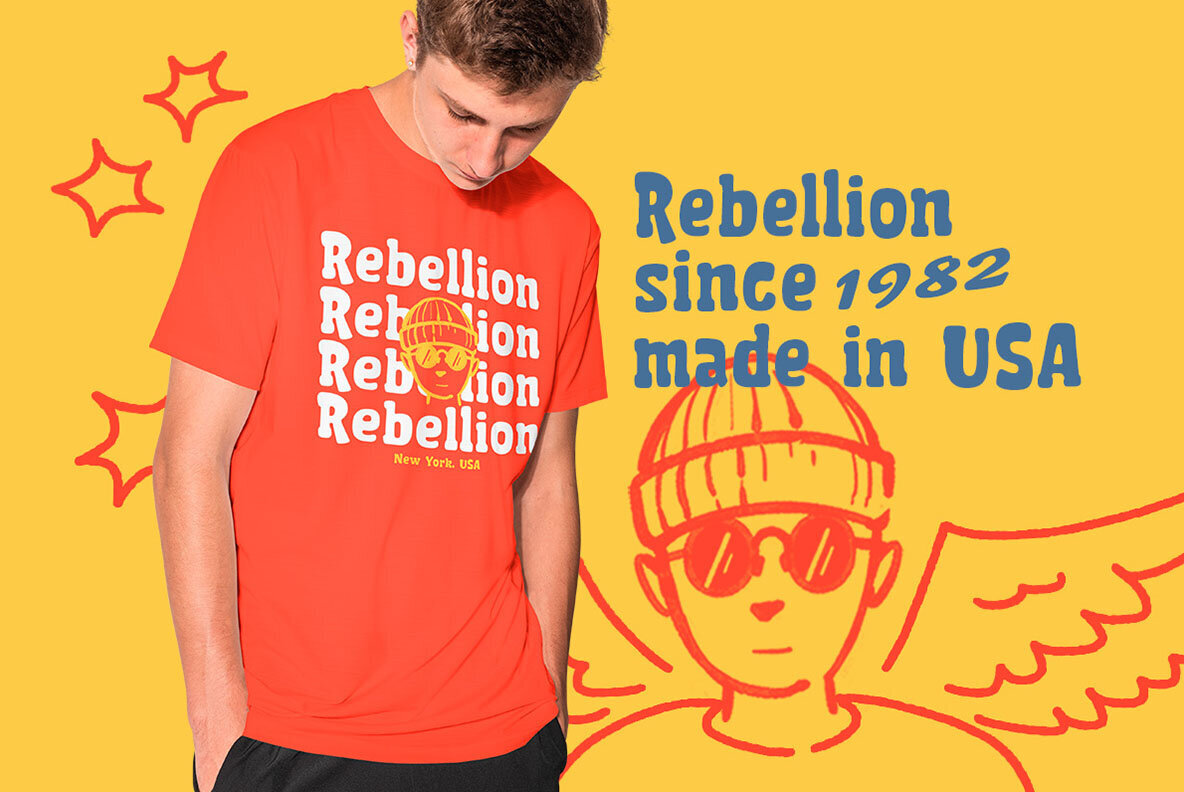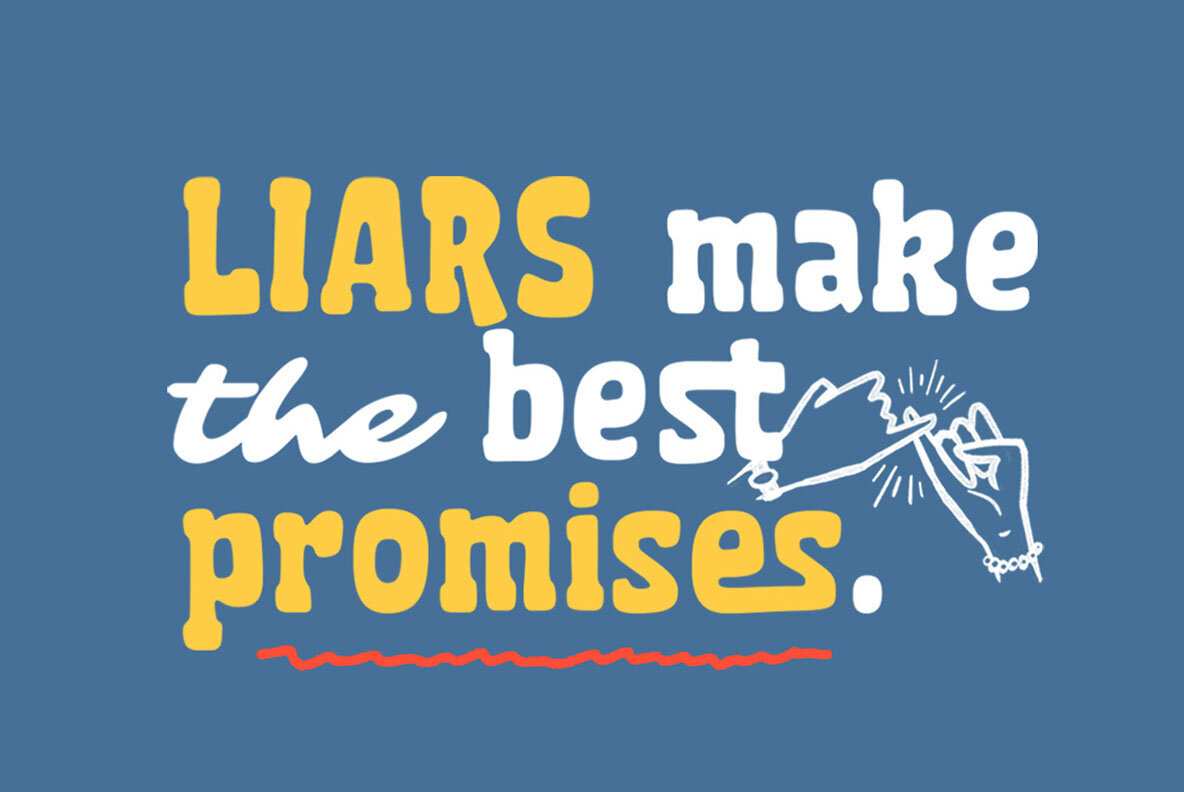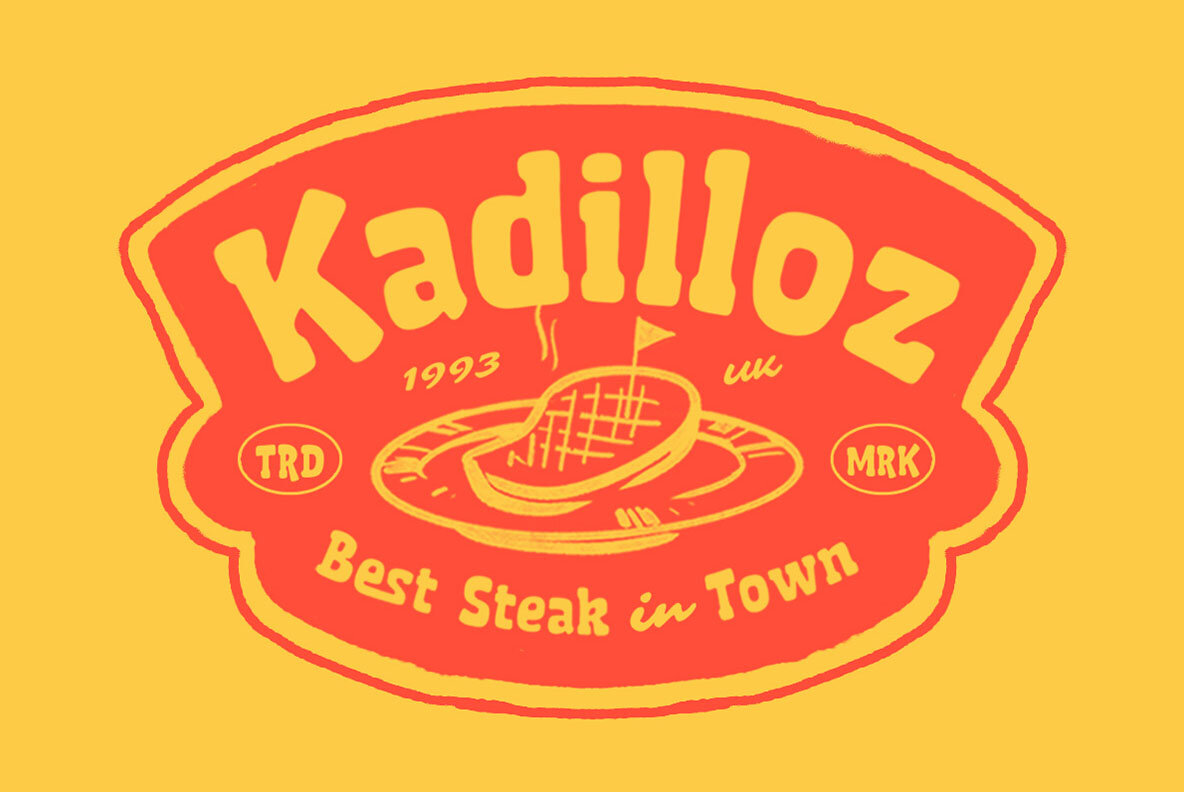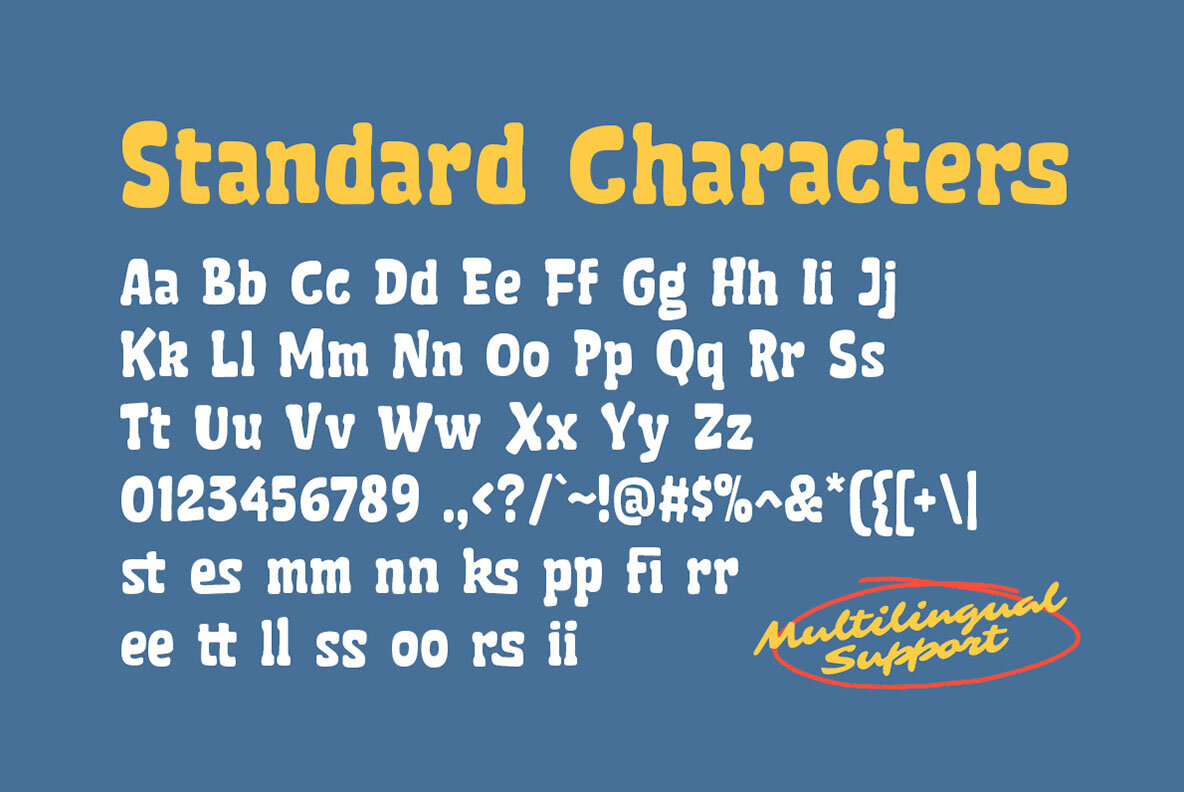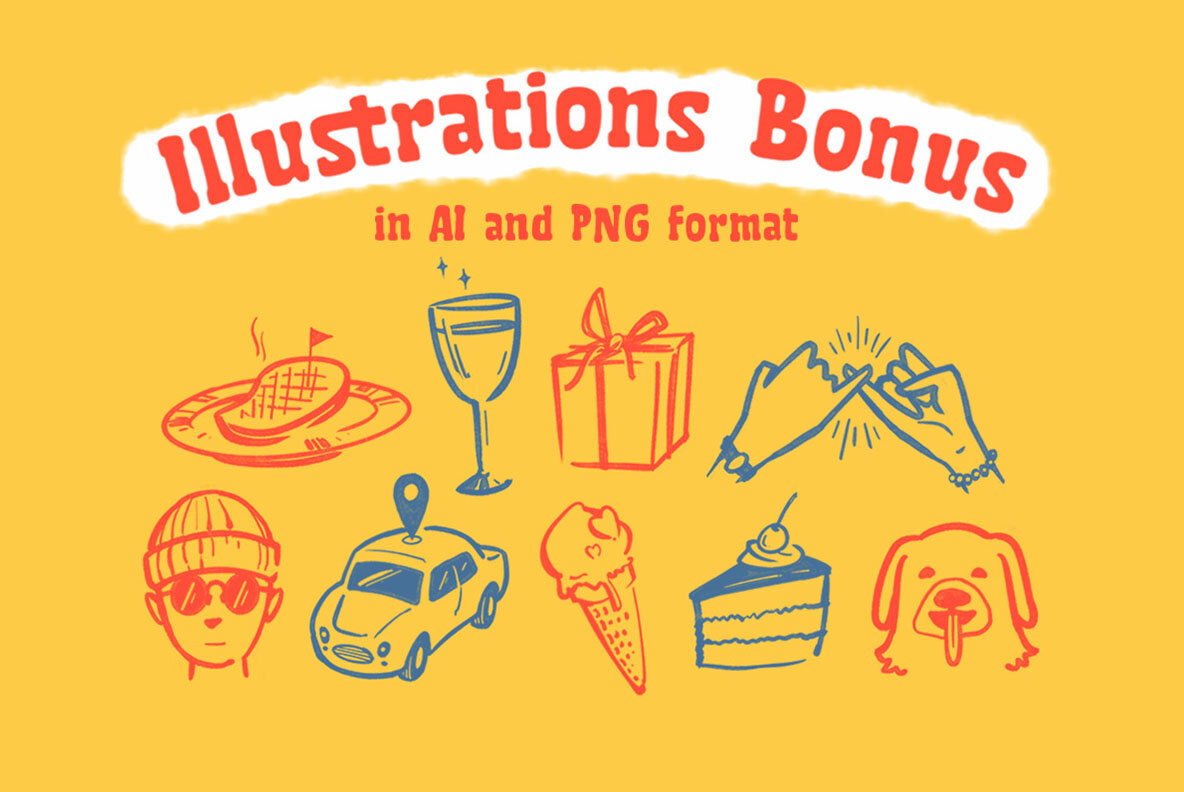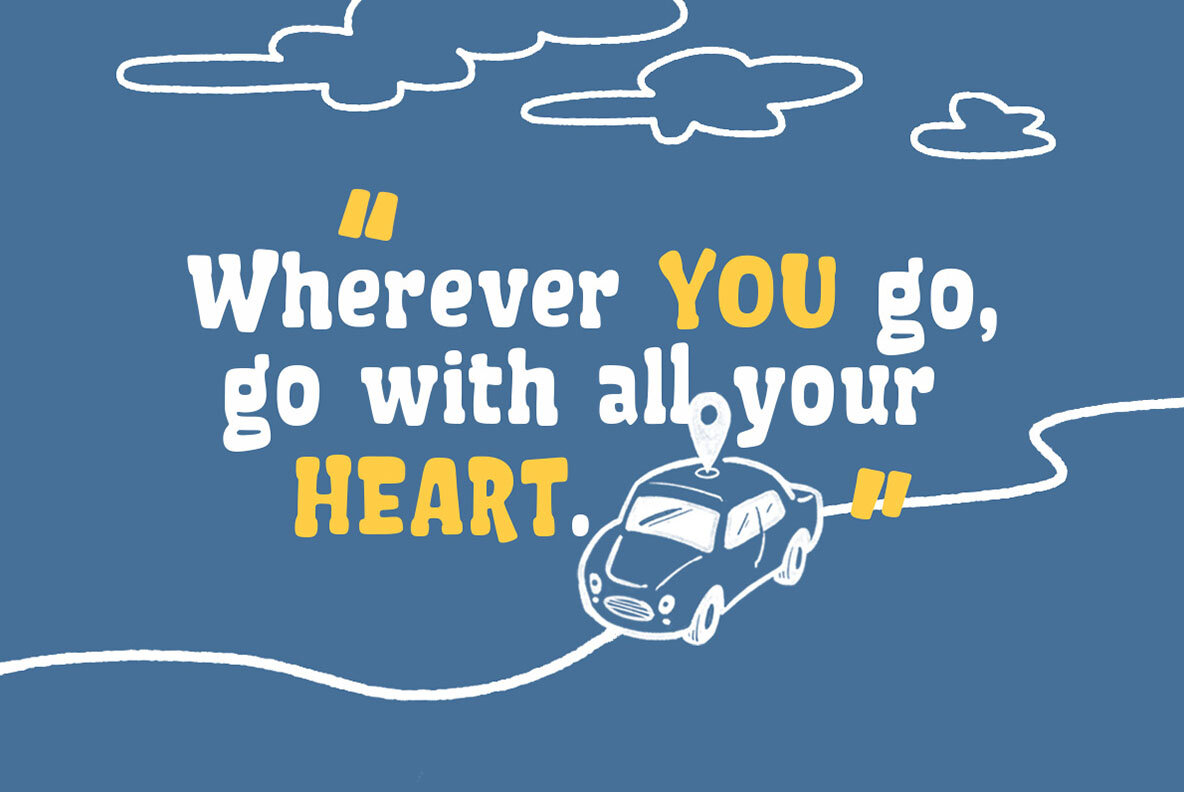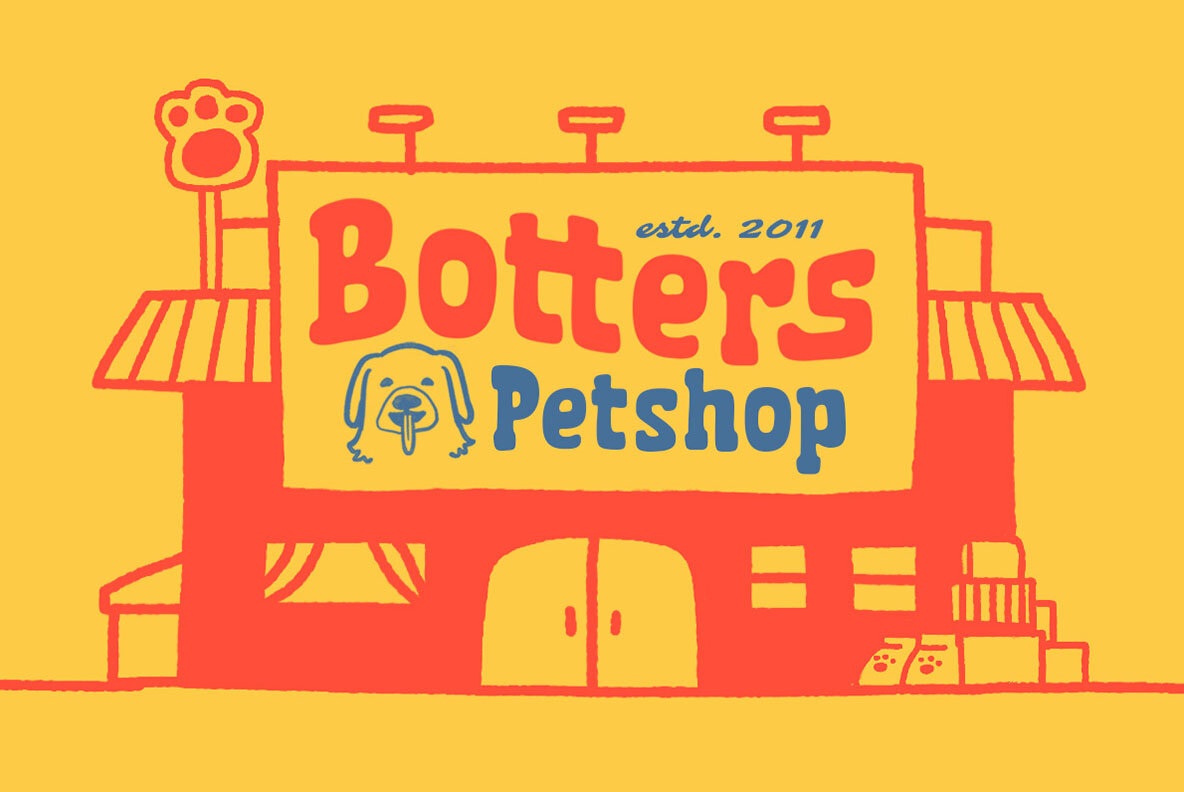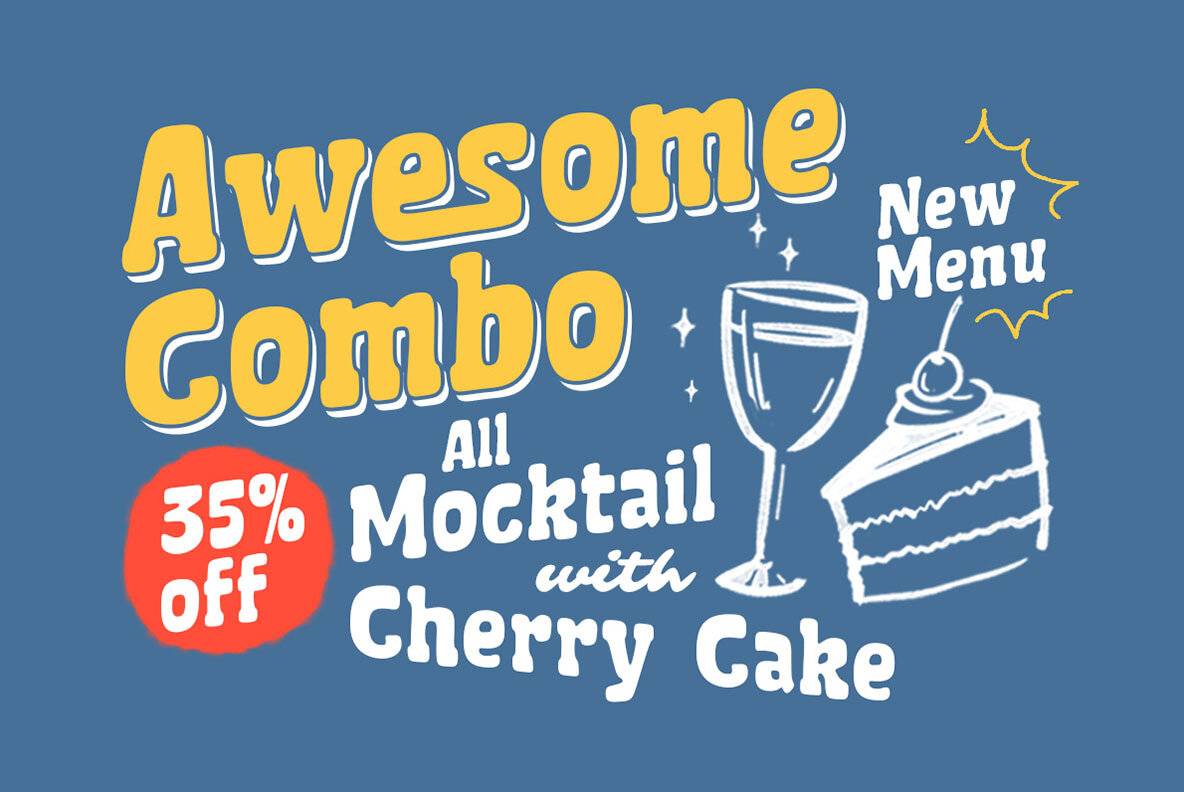
Stamp Blocks Font
Stamp Blocks is a playful display typeface, it comes with illustration bonus. This type of font perfectly made to be applied especially in storybook children or child theme which is need a standout font, and the other various formal forms such as invitations, labels, logos, magazines, books, greeting / wedding cards, packaging, fashion, make up, stationery, novels, labels or any type of advertising purpose.